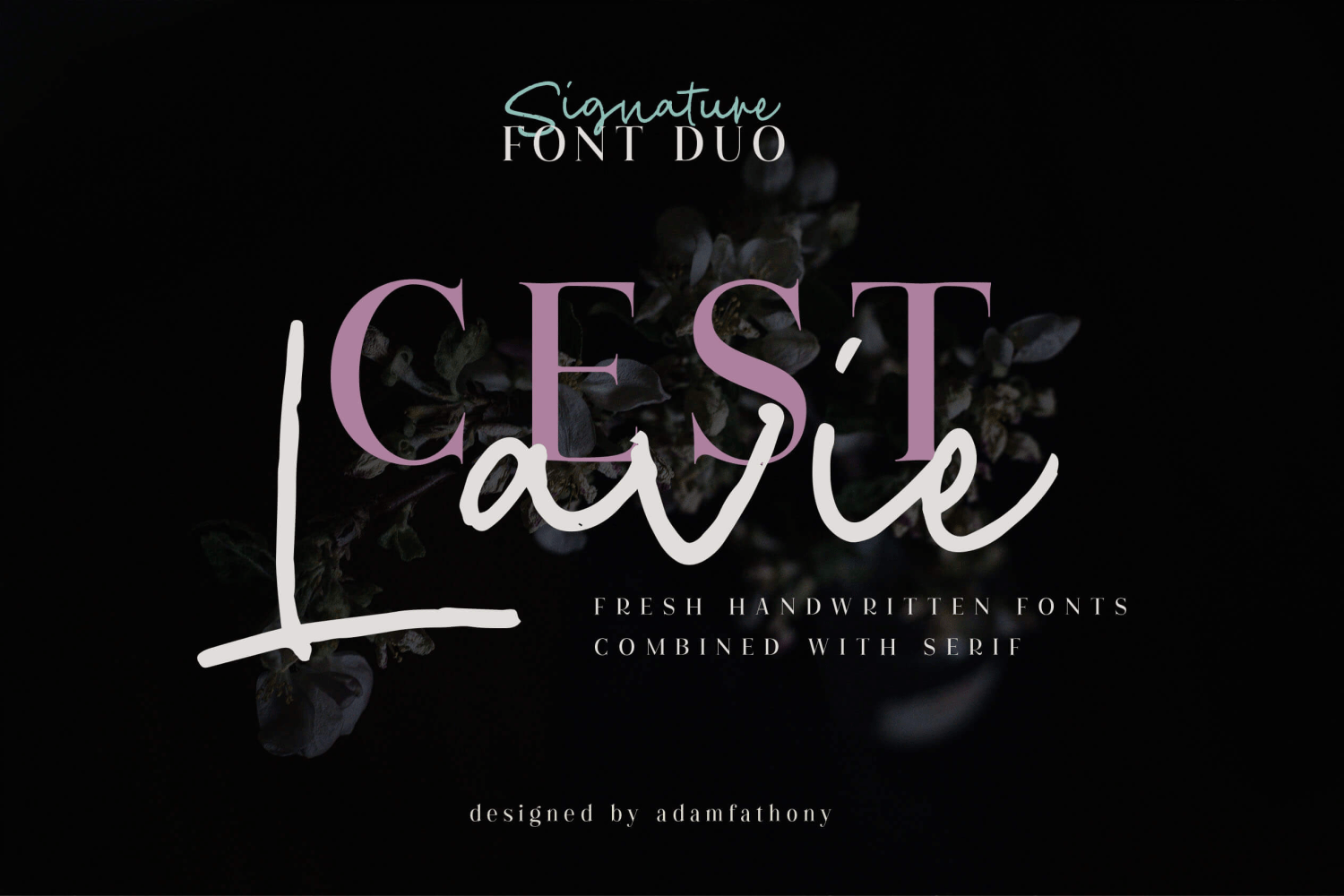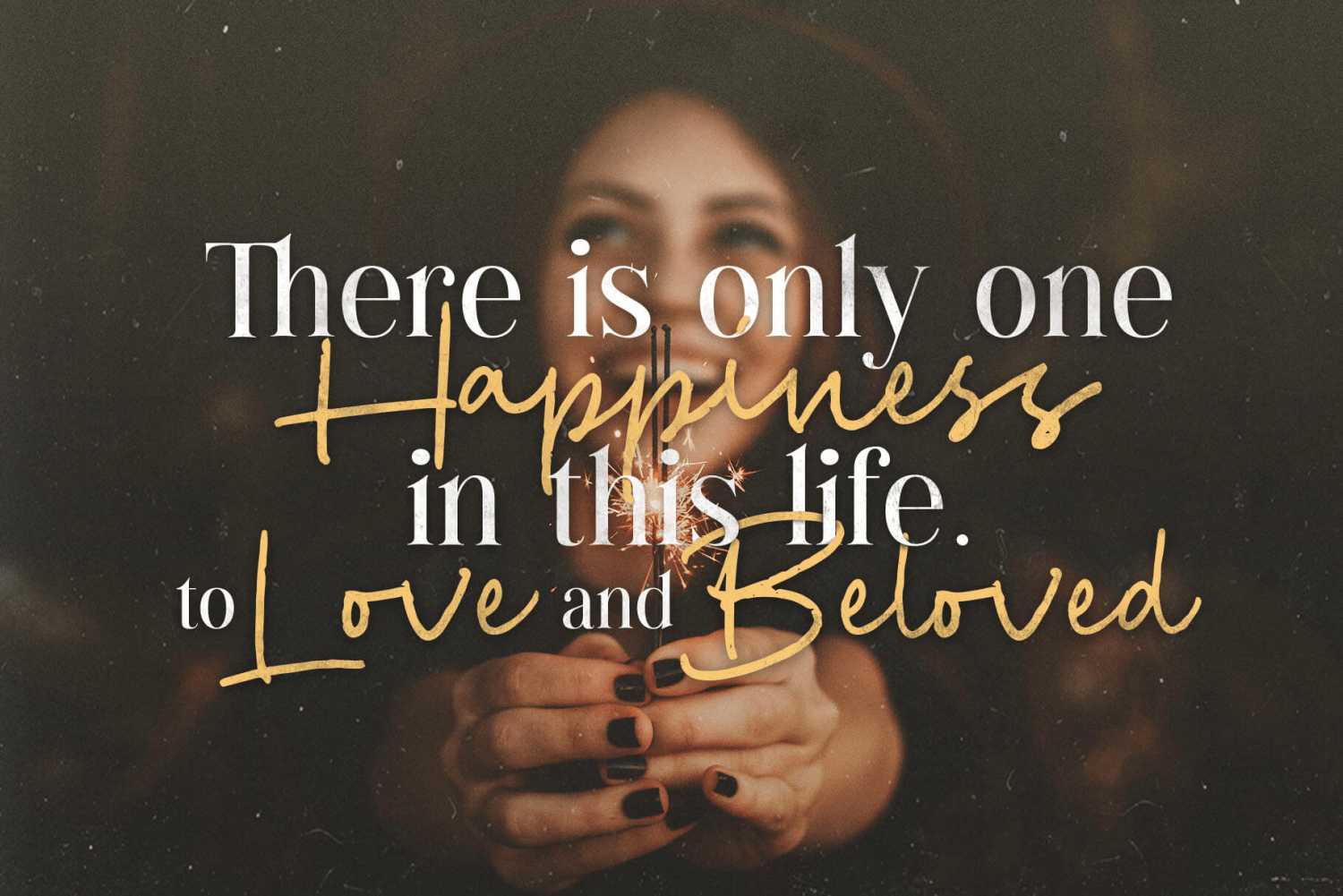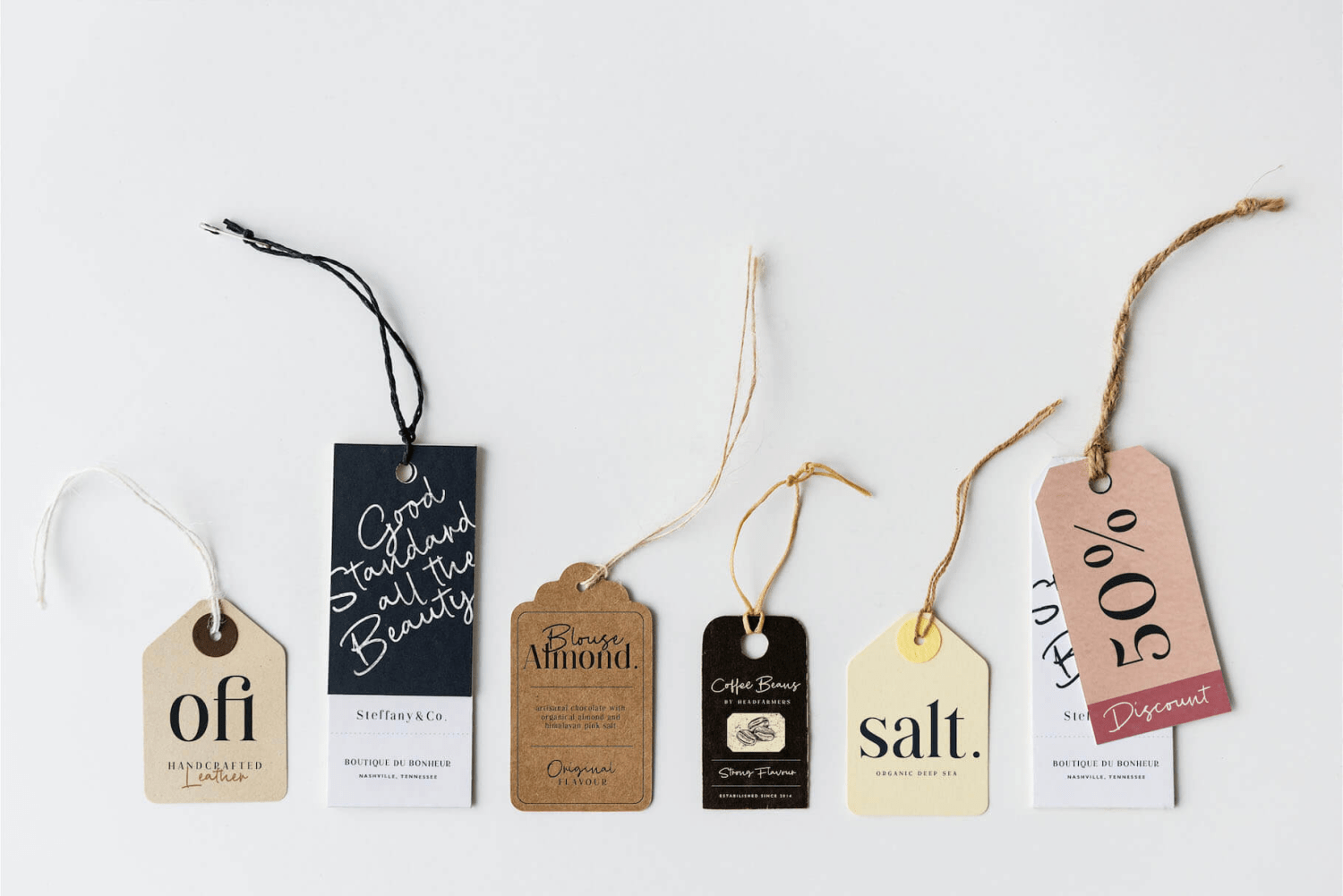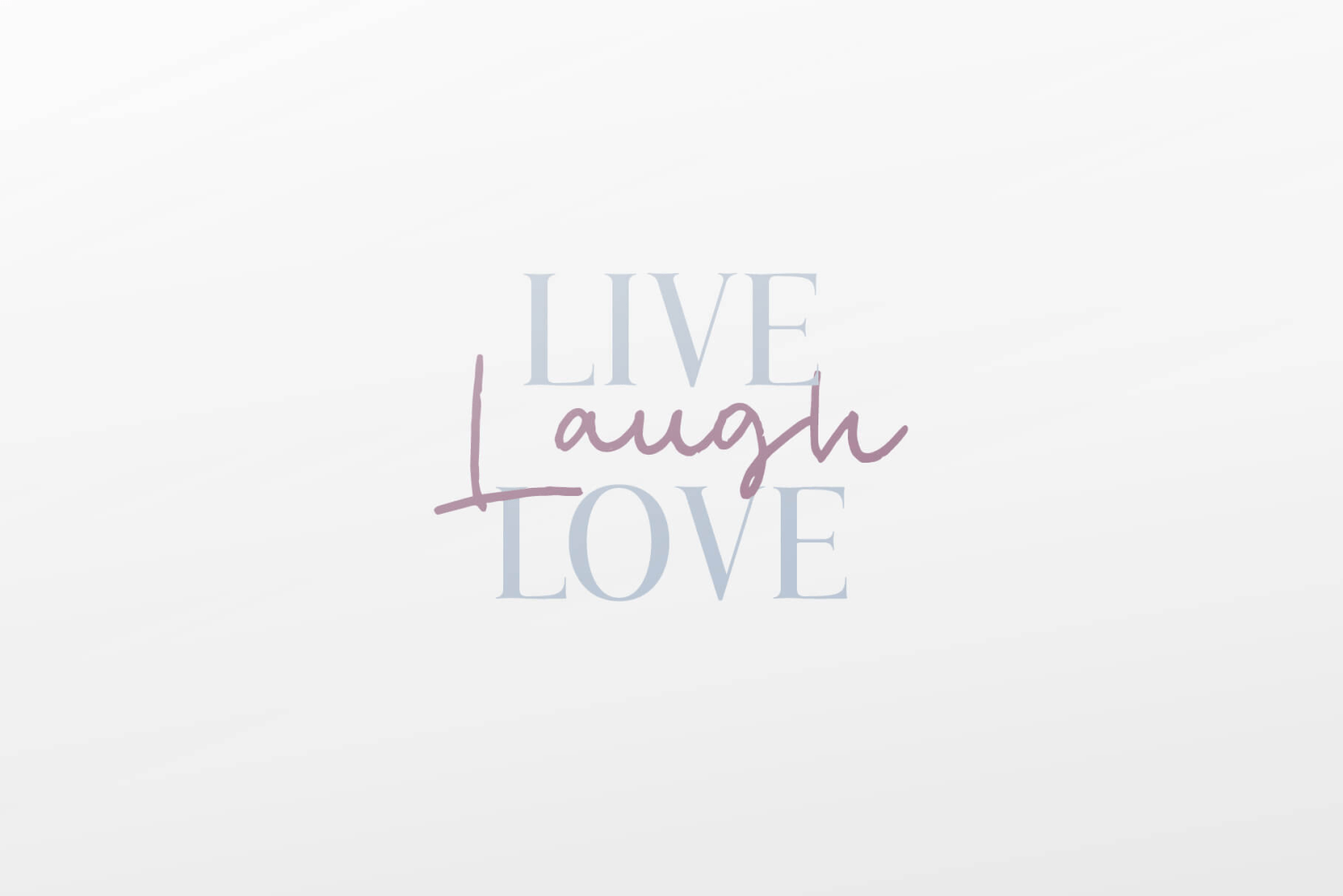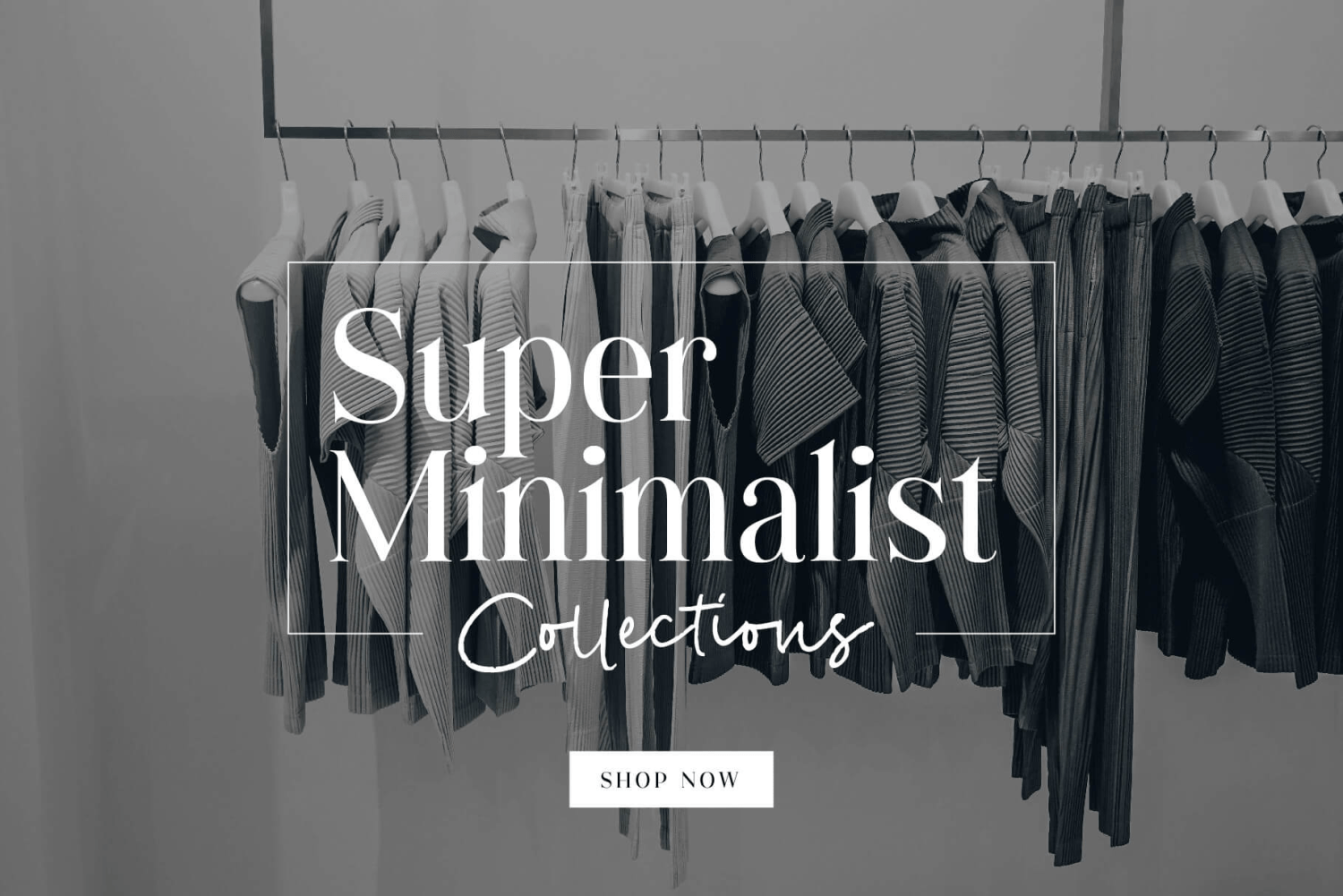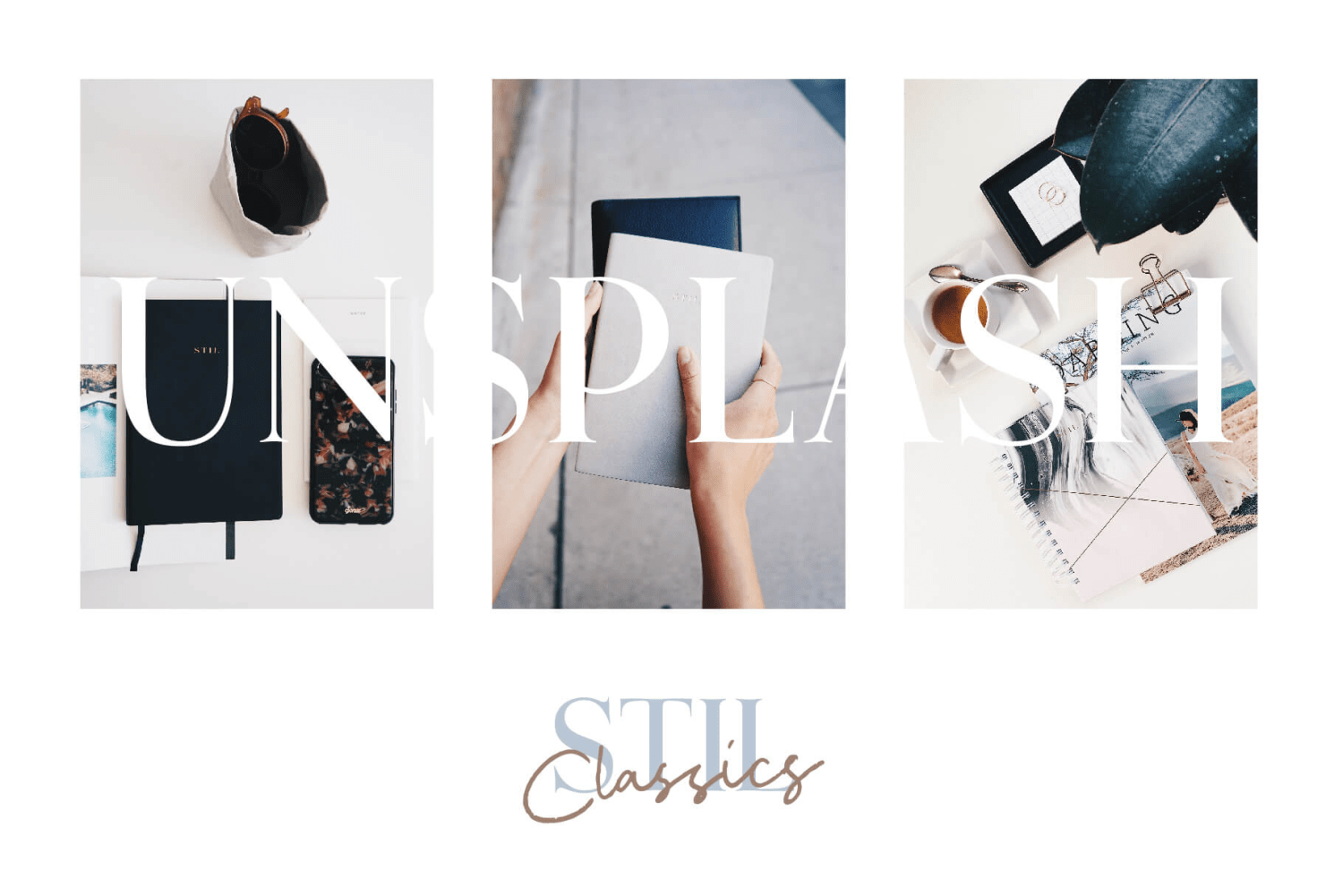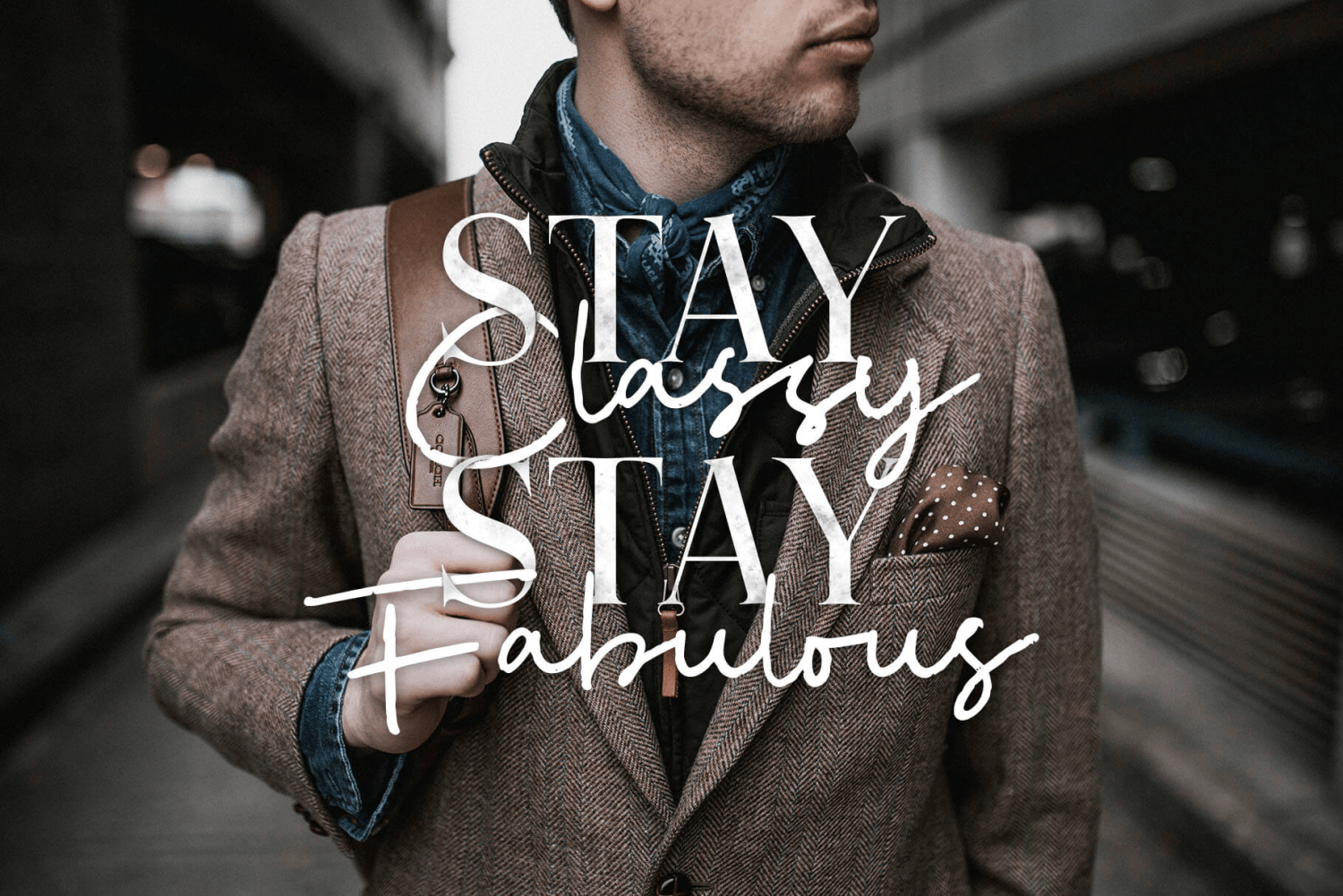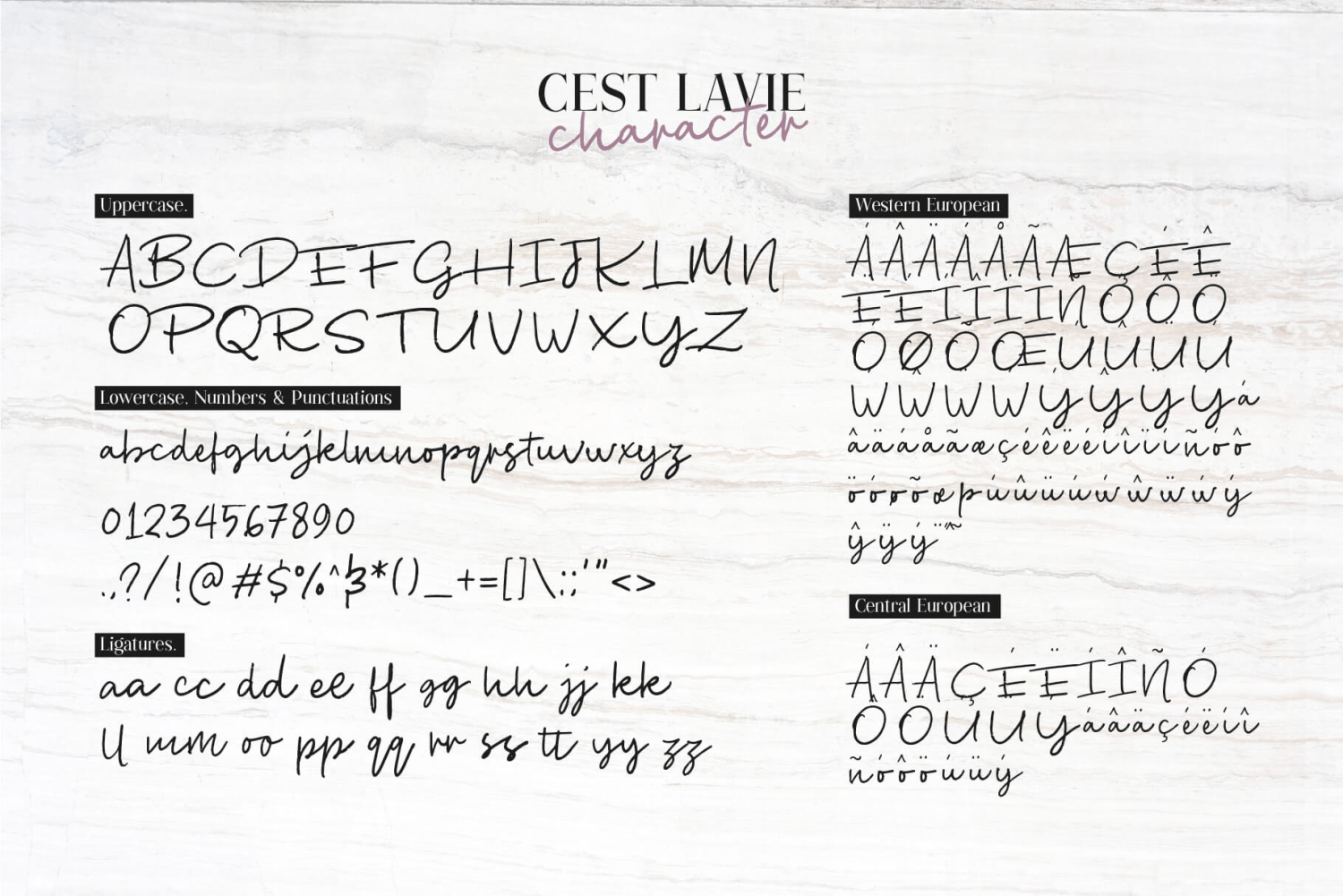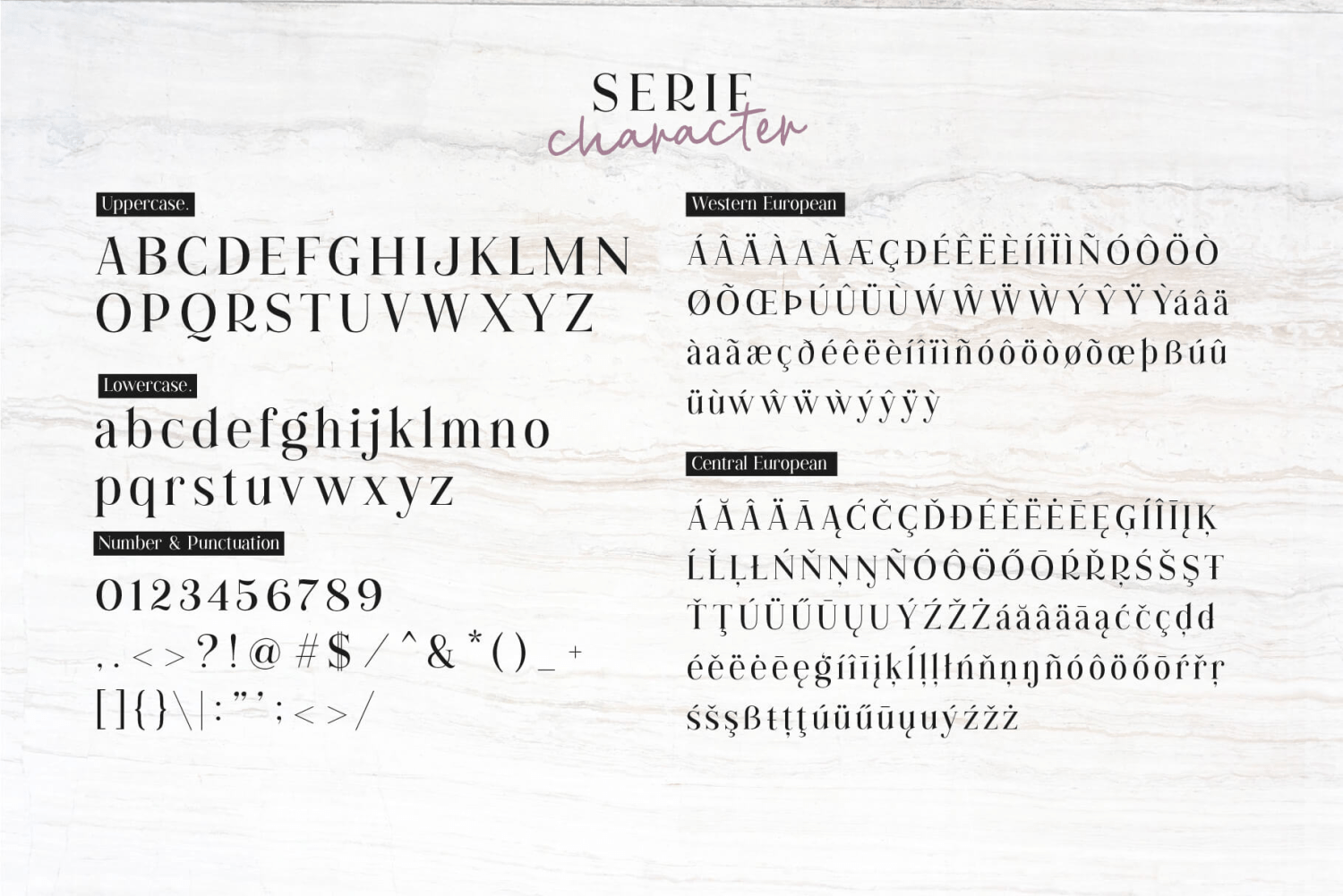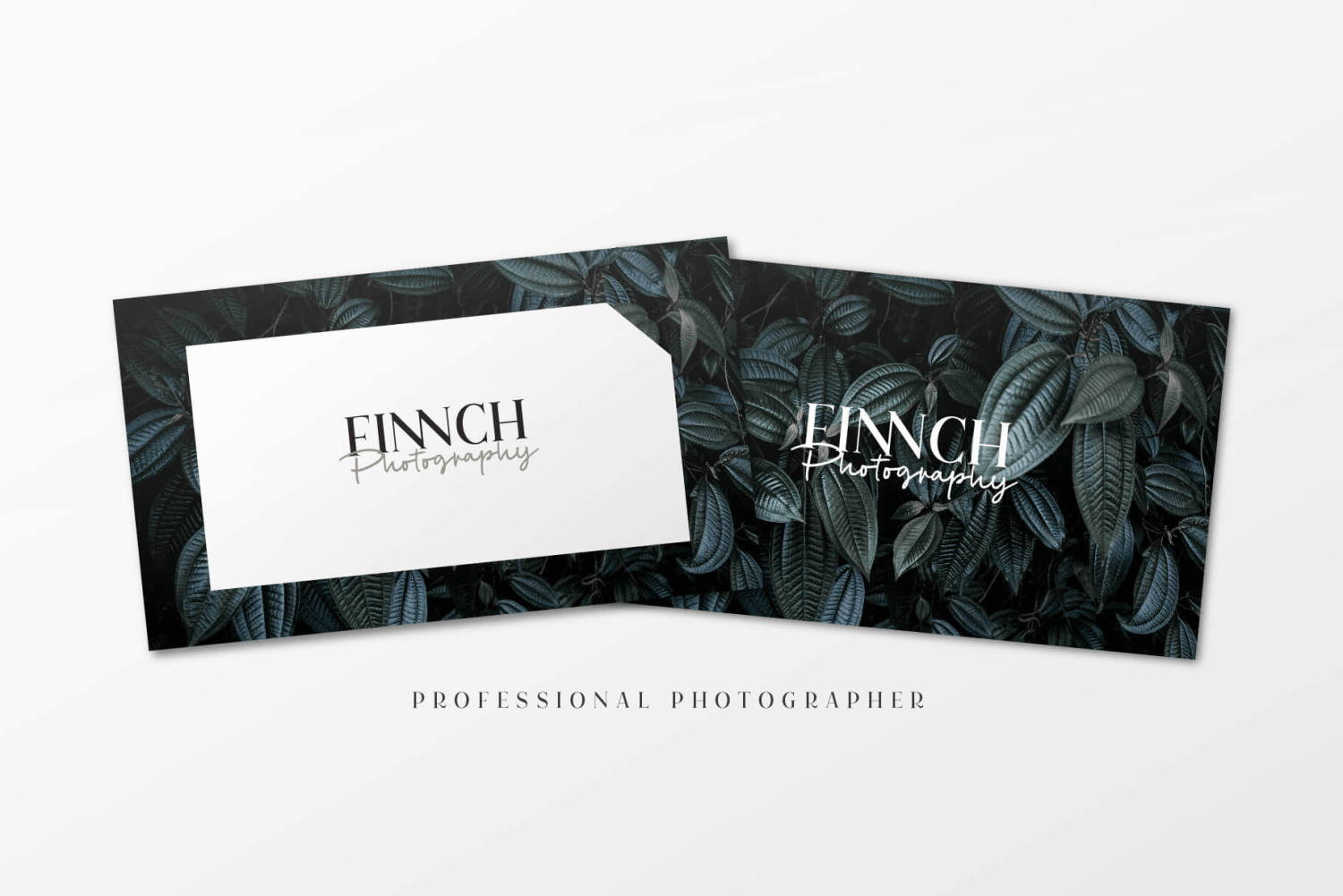
C'est Lavie
Font Family by AF Studio
C'est Lavie is a meaning of Life on French language it means Life. In life everybody sometimes got serious, focus, strong, thinking, and etc. But sometimes life must be enjoy, relax, breath, fun, smiling, laughing and etc.
So I presented the great font pair between 'serious and enjoy' with the name Cest Lavie. Handwritten with some touch of signature style of font combined with serif font to matching up the needs. On the Script version is created with a freedom of writing by a hand and Serif clean crafted by a pixel perfection. Both of them are comes with Multiple Language such as European and Western Character. The features created are not as huge as my product before, I just create what I think must need such as Ligatures. Comes with TTF and OTF version with no need special software requirements.